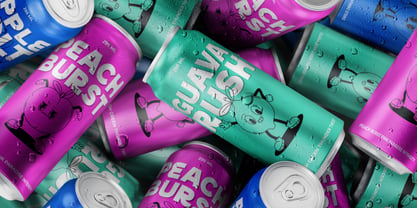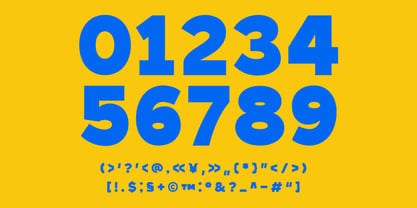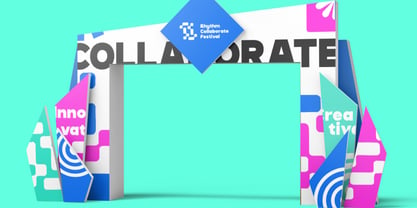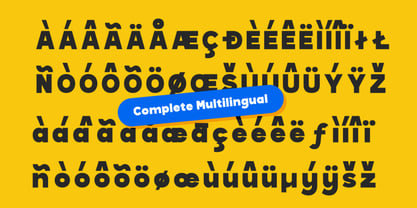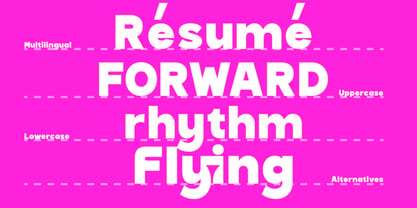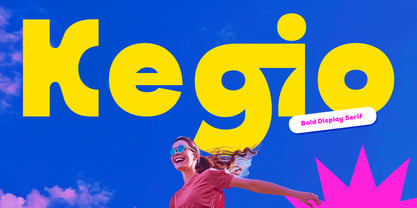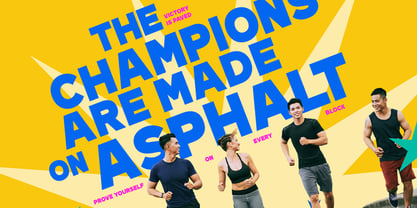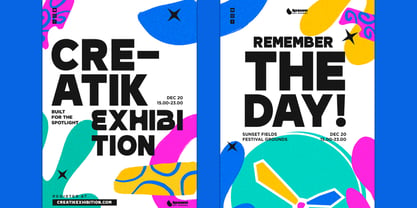
Kegio
Die Schriftfamilie Kegio wurde von Fajar Indra entworfen und von Rasio Studio veröffentlicht. Kegio enthält 1 Stile. Mehr über diese Familie
Kegio is a vibrant and bold display serif font designed to bring joy and punch to your creative projects. With thick curves, playful energy, and retro-modern styling, Kegio is ideal for projects that require strong typographic impact without sacrificing personality. It effortlessly combines nostalgic charm with contemporary sharpness, making it a versatile choice for bold visual storytelling. The font includes a complete character set featuring uppercase and lowercase letters, directional ligatures, stylistic alternates, numerals, punctuation marks, and extensive multilingual support to ensure wide usability across global design markets. Its exaggerated forms and dynamic proportions add energy to text, making headlines and logotypes come alive with character. Designed to break the mold of traditional serif fonts, Kegio empowers creatives to design with confidence, humor, and clarity. It's particularly effective in branding materials, merchandise packaging, and any digital or print content that demands to be noticed and remembered.